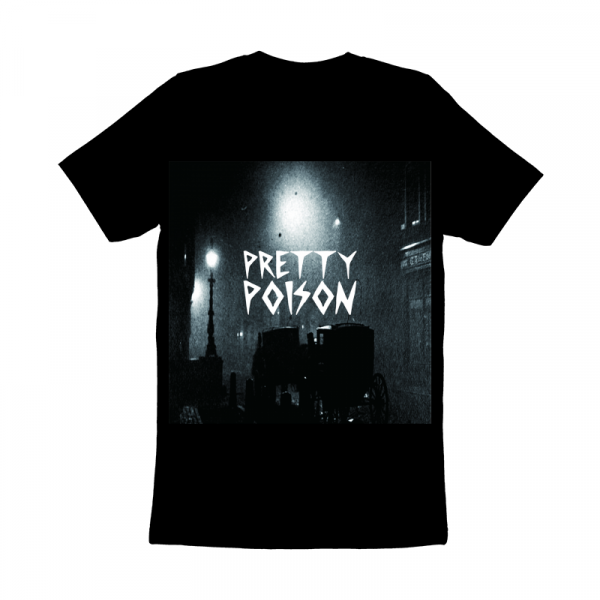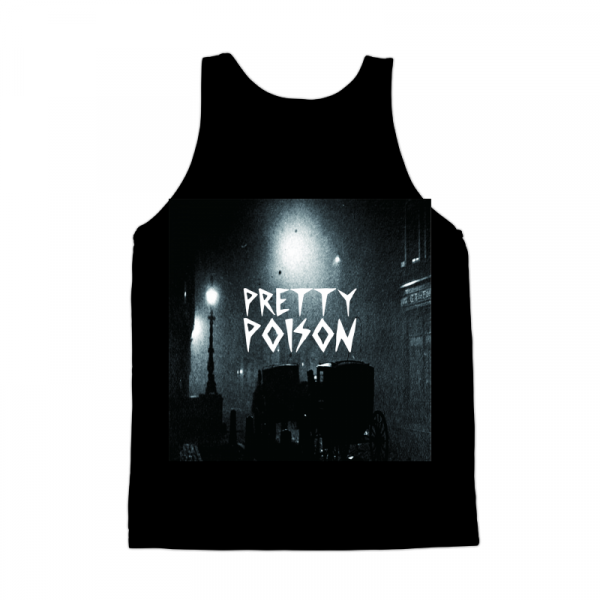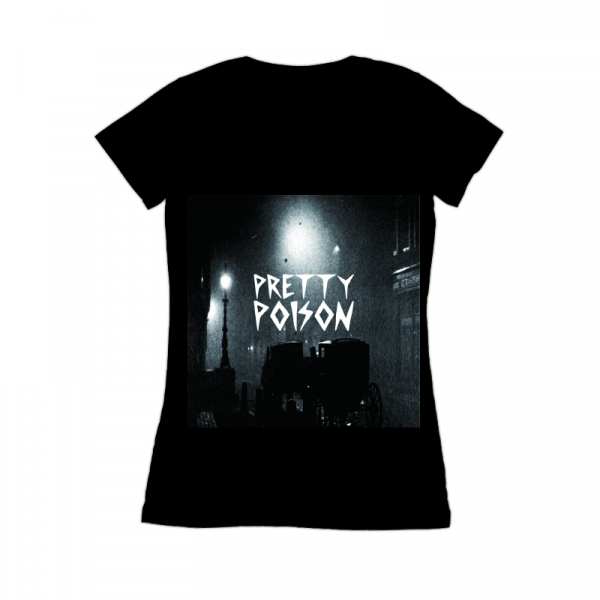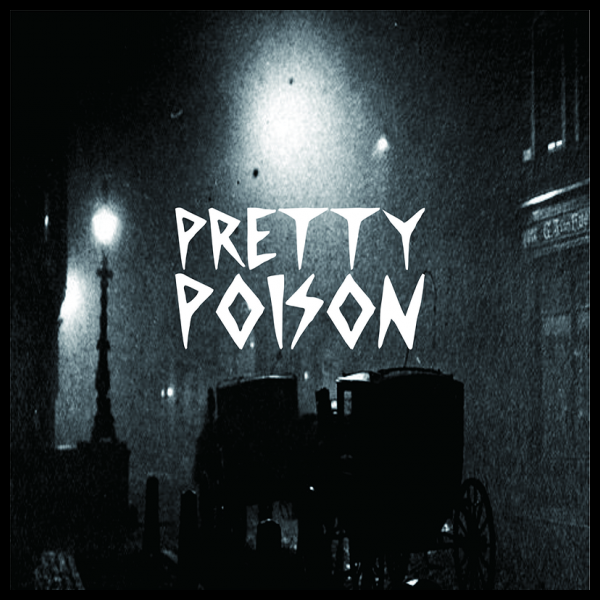
Pretty Poison Font
Designed by
AHTRAM DESIGN
Introduction for Pretty Poison font is font display great for bad ass design for t-shirt and etc. Skateboarding culture style and a bit bad ass disaster theme, TTF font file included haha